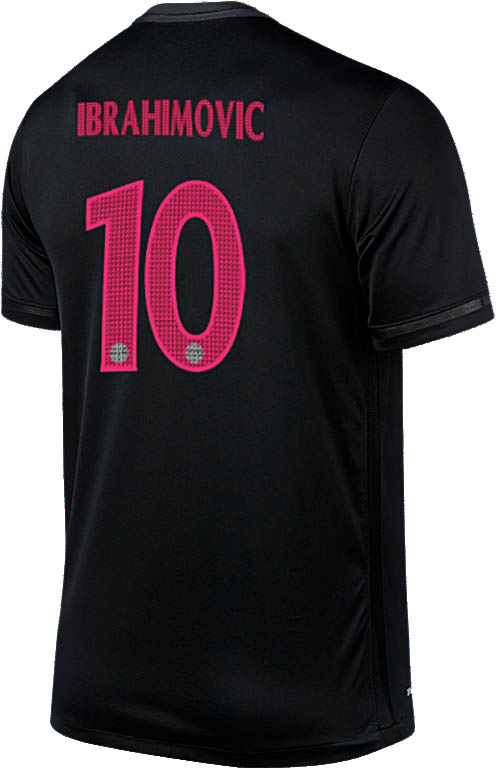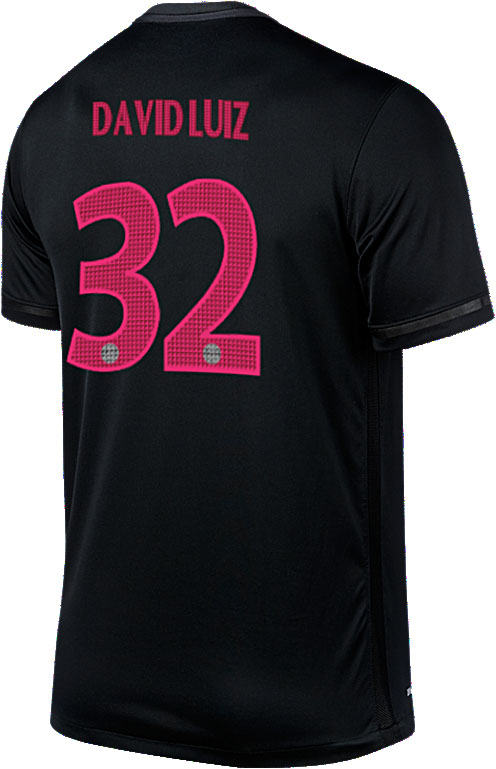
Bold Paris Saint-Germain 15-16 Font Revealed
Striking. The new Nike Paris Saint-Germain 2015-2016 Champions League Font introduces a unique design, solely designed for the brand-new black PSG 15-16 Champions League Home Jersey.
On September 9, Nike revealed the stunning Paris Saint-Germain 15-16 Dark Light Kit, which is set to be used for the crucial matches of the 2014-15 Ligue 1 champions - as primary shirt choice in the 15-16 Champions League as well as in important league matches.
Black 15-16 PSG Kit Kit Numbers & Names Font
This image shows the new pink Paris Saint-Germain 2015-16 Font on the shirts of Cavani and Ibrahimovic.
The new Nike Paris Saint-Germain Font boasts a striking design to make a bold statement on the pitch. In contrast to the stealth look of the powerful black jersey, the new PSG Numbers and Names are pink - it's anything but standard.
The new PSG Font features a unique graphic pattern, which can be also seen on the crest of the black Paris Saint-Germain Kit. Interestingly, the distinctive pattern was already used for PSG's 14-15 Pre-Match Shirt.
The LFP logo is placed inside the pink Nike Paris Saint-Germain 2015-16 Kit Numbers for Ligue 1 matches, while the Champions League version will feature the reimagined black, white and grey PSG crest of the shirt.